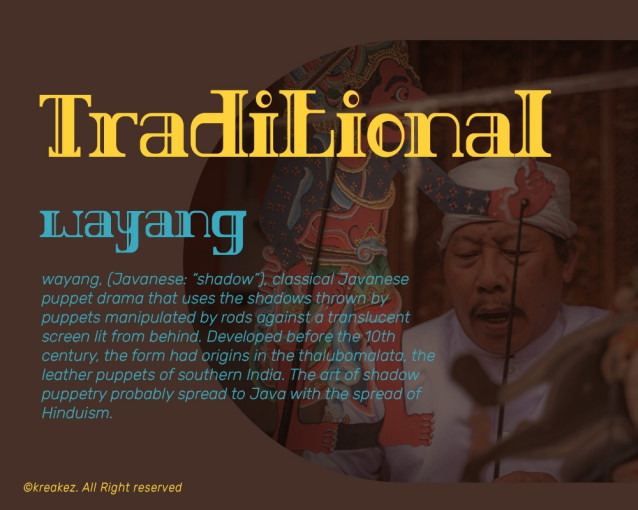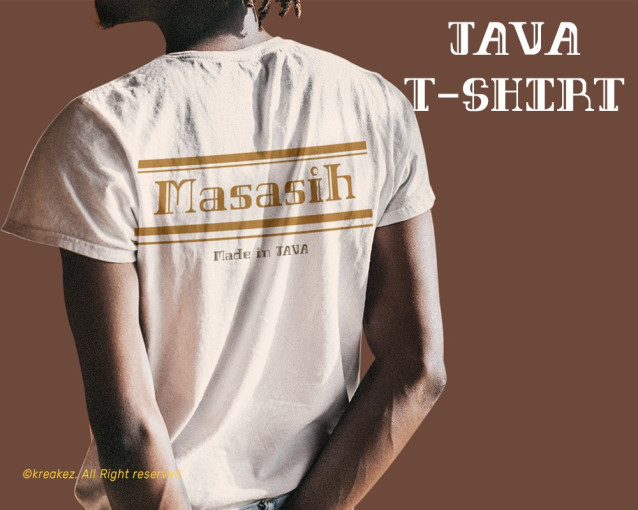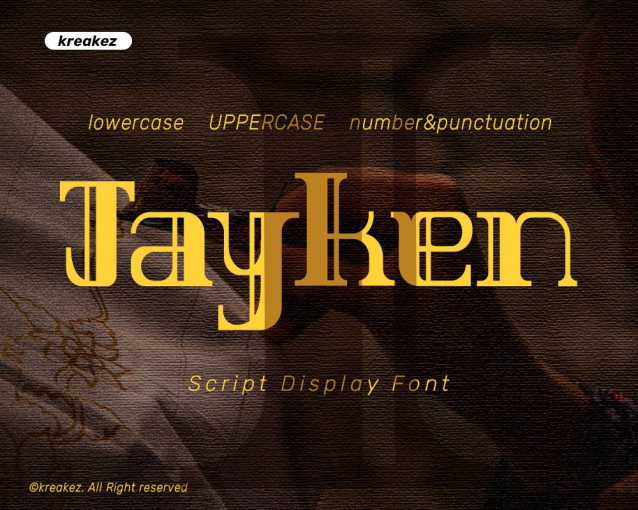
Jayken Font
Jayken Font is a bold, serif display font with a sharp geometric edge. Designed to grab attention, this typeface exudes high energy and a strong edge—perfect for action themes, posters, video games, branding, or extreme sports projects. With its tall structure and angular style, Jayken makes a strong visual impact wherever it appears.